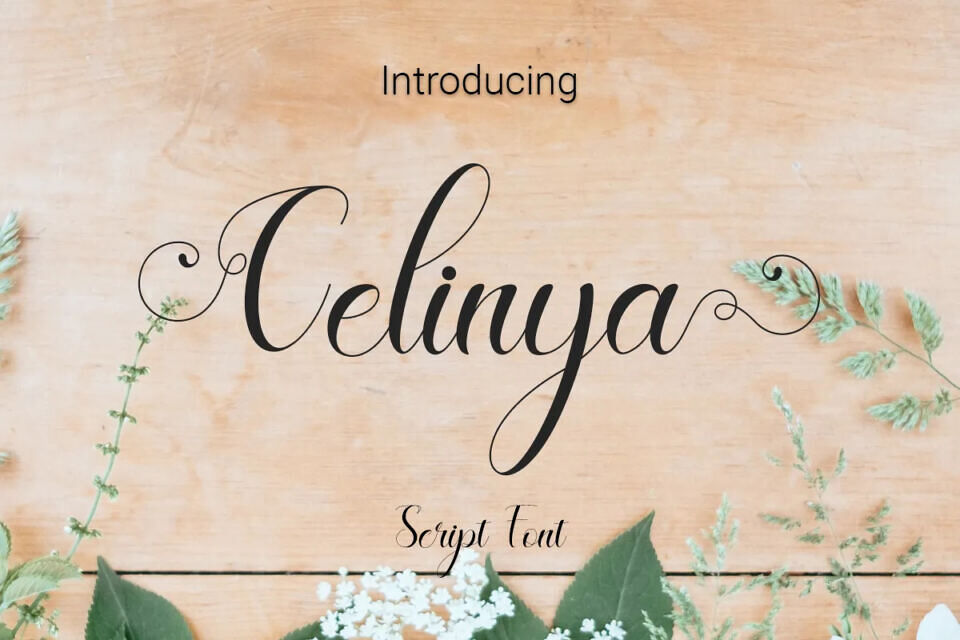
Celinya Font
Celinya is an elegant and beauty handwritten font. It looks stunning on wedding invitations, thank you cards, quotes, greeting cards, logos, business cards and every other design which needs a handwritten touch. It features a varying baseline, smooth lines, gorgeous glyphs and stunning alternates.